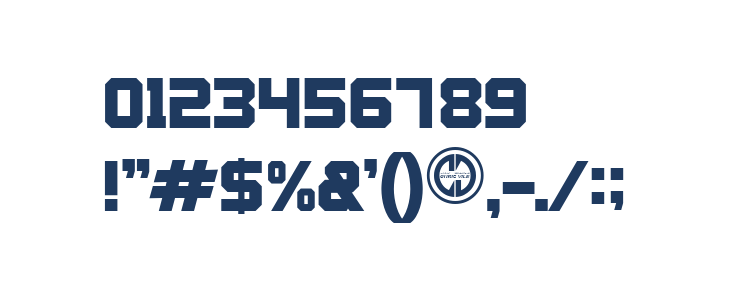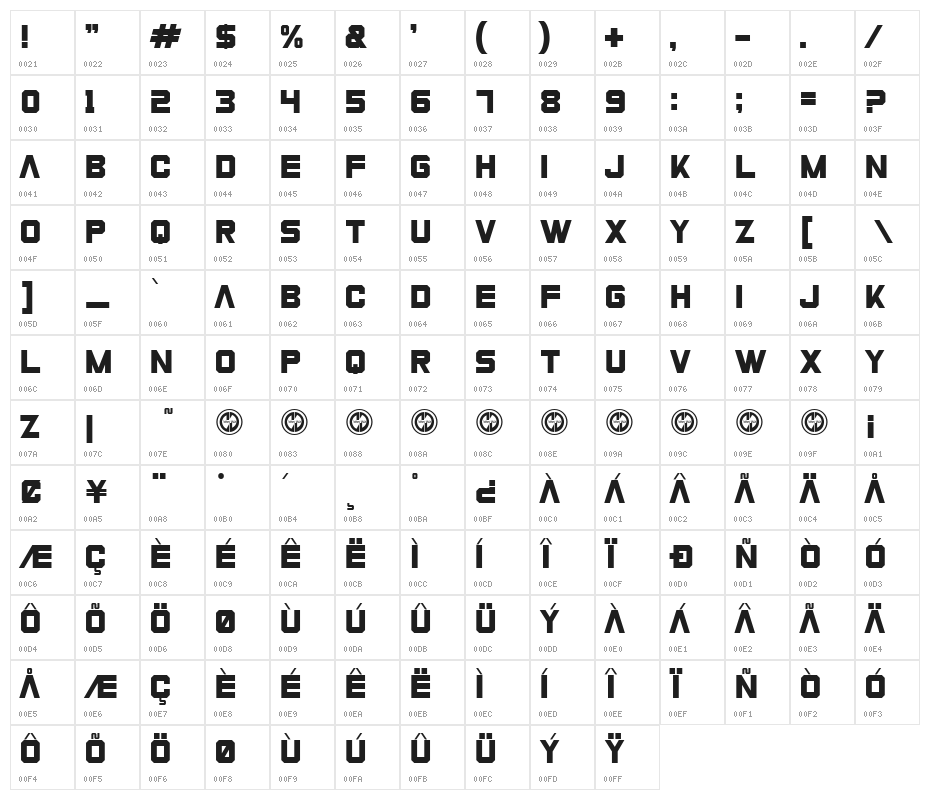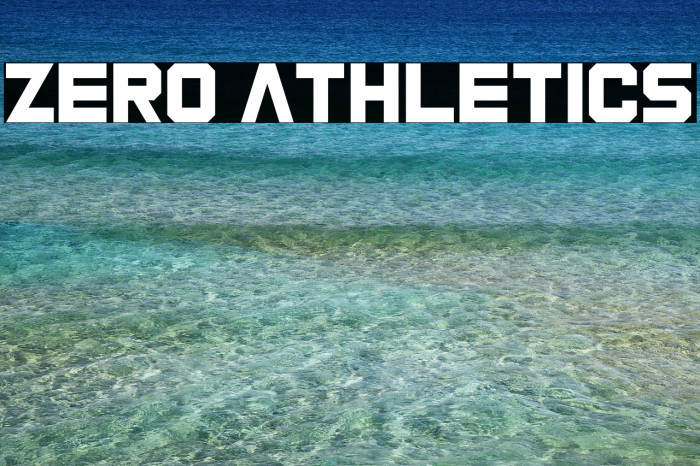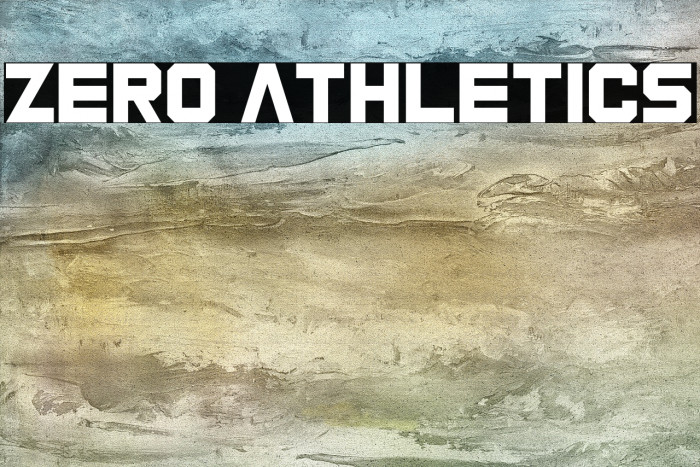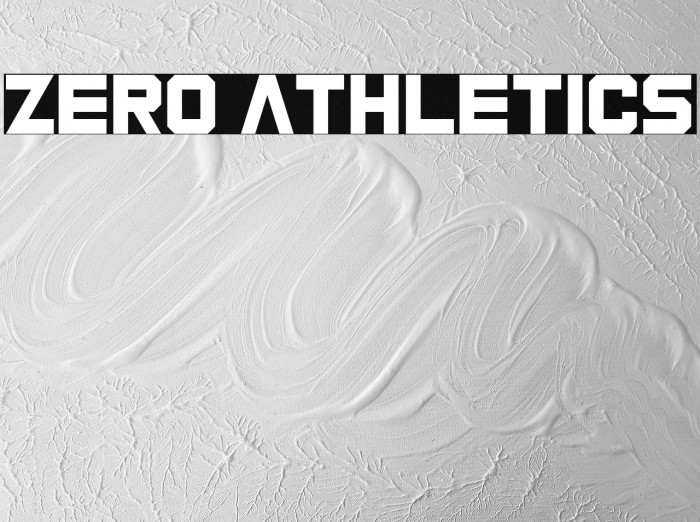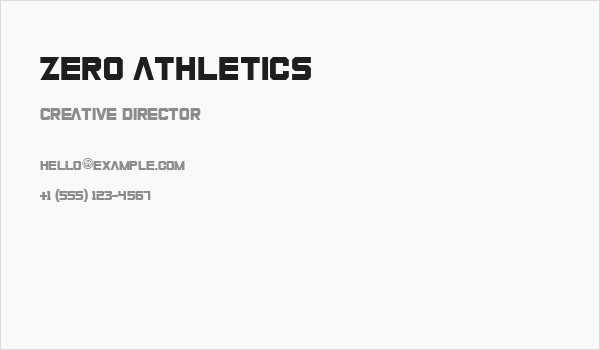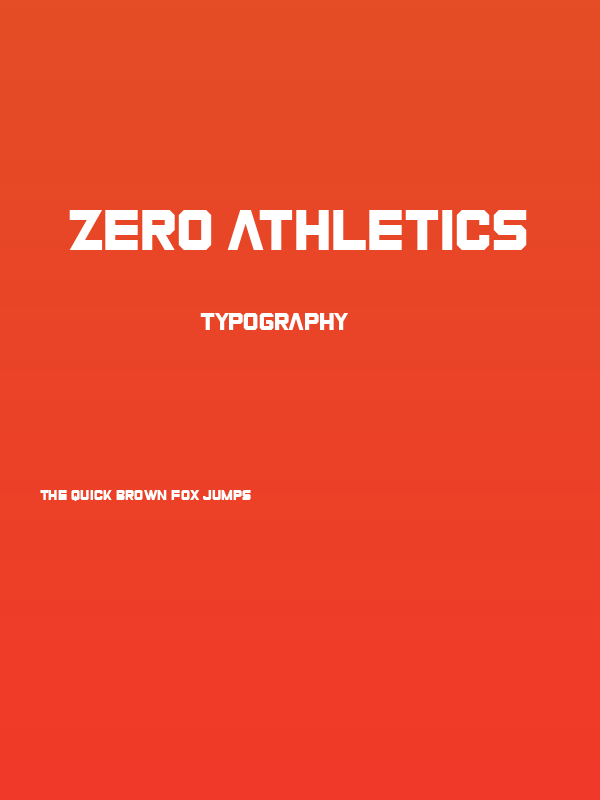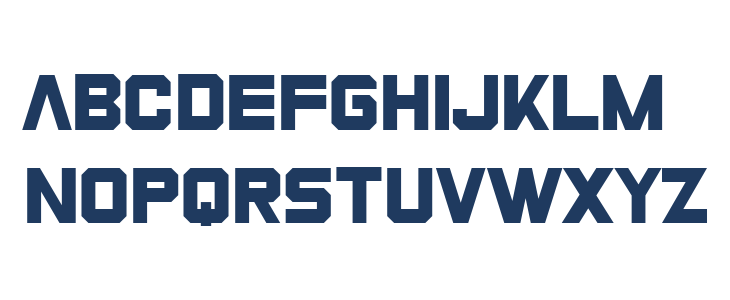
Zero Athletics Font
Zero Athletics Description
This font features a bold, geometric design with strong, angular lines and a modern aesthetic. The characters are constructed with a uniform thickness, giving them a robust and impactful appearance. The uppercase letters are particularly striking, with a blocky, industrial feel that suggests strength and stability. The numerals and special characters maintain this consistent style, ensuring a cohesive look across all text. The overall design is clean and uncluttered, making it highly legible even at smaller sizes. This font is well-suited for projects that require a bold statement or a contemporary edge.